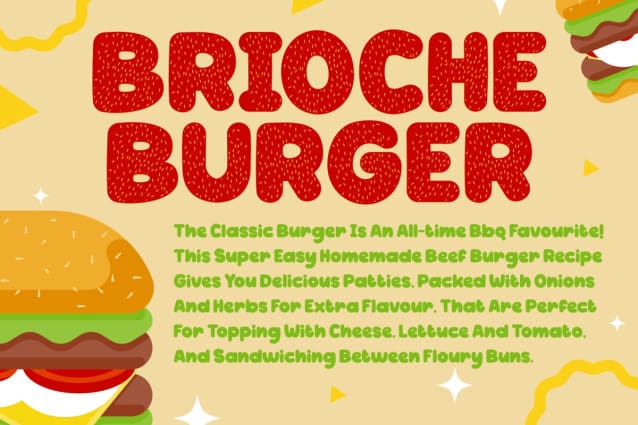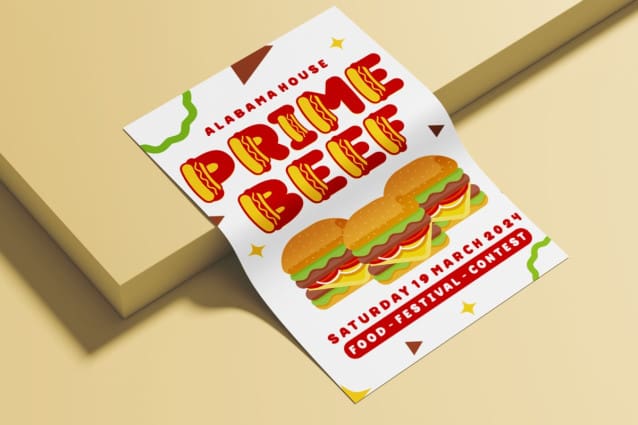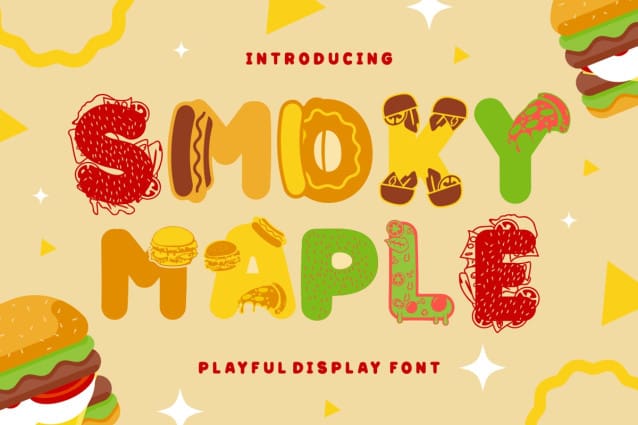
Smoky Maple Font
Smoky Maple Font, a display burger font that captures the essence of culinary delight. With its playful and whimsical design, Smoky Maple is perfect for a wide range of applications, from logos and branding to crafting and invitations. Each letter is crafted to resemble the layers of a delicious burger, making it an ideal choice for food-themed projects and children’s books. The font’s versatility extends to business signage, greeting cards, stickers, and magazine designs, ensuring that your message stands out with a touch of flavor and creativity.
Smoky Maple isn’t just a font; it’s an experience that blends the visual appeal of typography with the mouth-watering allure of fast food. Whether you’re designing packaging, posters, or titles, this font adds a unique and appetizing twist to your creations. Its bold and layered style is reminiscent of the textures and toppings of a classic burger, inviting viewers to savor your designs as they would a gourmet meal. Embrace the playful spirit of Smoky Maple and let your designs leave a lasting impression.